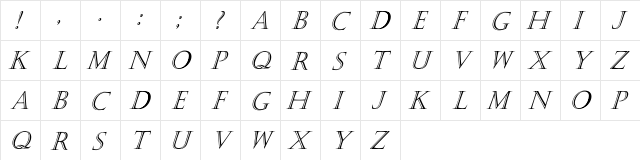
Carmens-Italic Italic
Design Context for Carmens-Italic Typeface
Carmens-Italic is a composed and adaptable typeface that performs quietly and consistently across a wide range of design contexts. Its italic angle brings a sense of urgency and motion to the letterforms.
Pro Tip: Use Carmens-Italic for emphasis, pull quotes, and subheadings where its slanted energy can add rhythm to the layout.